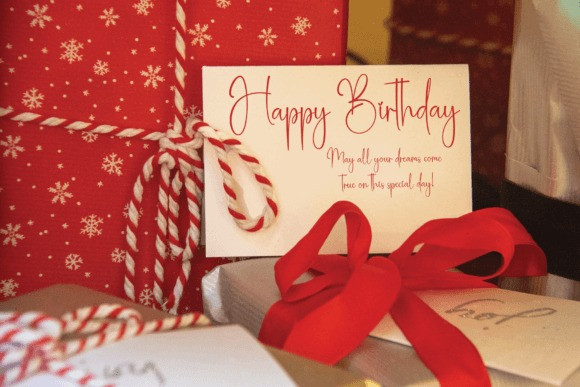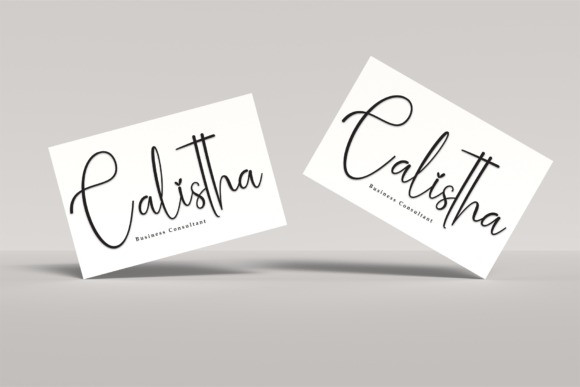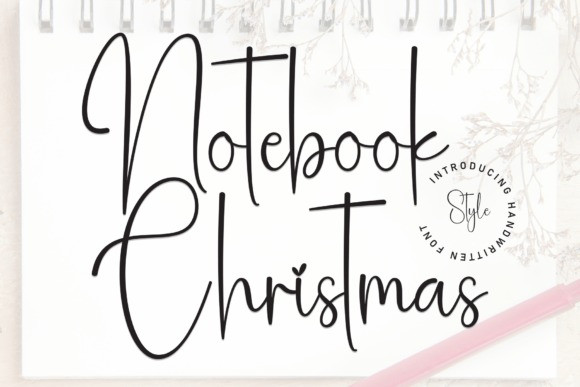
Notebook Christmas Typeface
Notebook Christmas Typeface, is a stylish and incredibly elegant script font. It looks stunning on wedding invitations, thank you cards, quotes, greeting cards, logos, business cards and every other design which needs a handwritten touch.